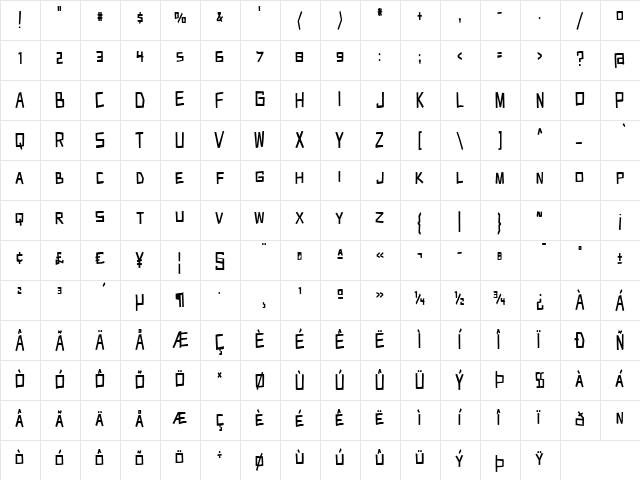
LoveAnxiety Cnd AOE Regular
Design Context for LoveAnxiety Cnd AOE Typeface
LoveAnxiety Cnd AOE takes a measured approach to typography — its balanced proportions and neutral character make it a reliable workhorse for both digital and print work.